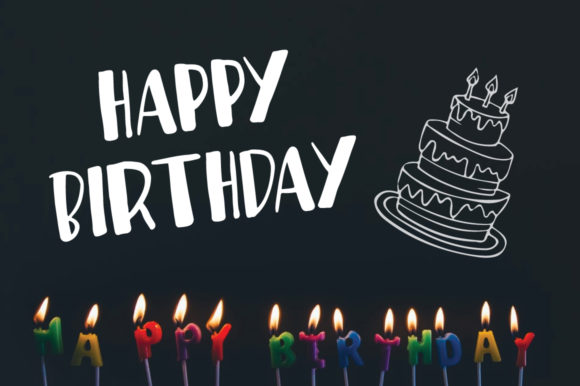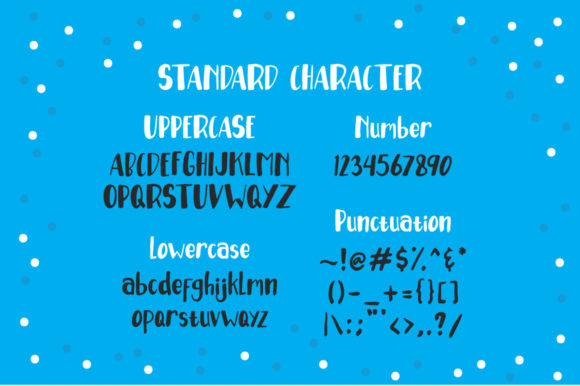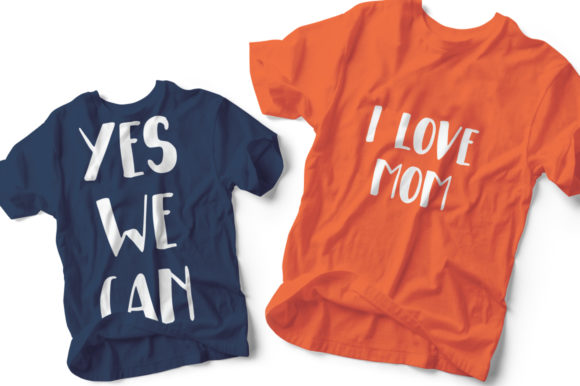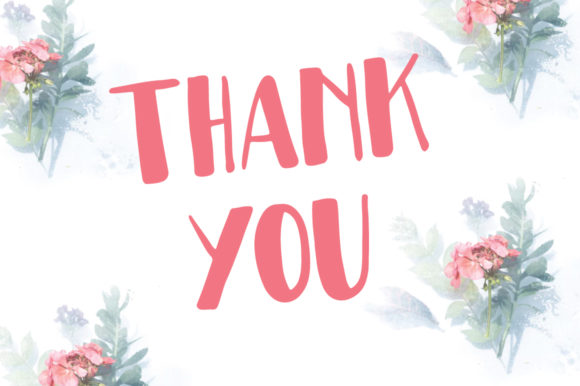
Introducing Gebryna Font: The Ultimate Choice for Informal Designs
Are you tired of using the same old fonts for your designs? Look no further! Gebryna Font is here to revolutionize your creative projects with its bold, casual, and playful style. This display font is perfect for designers and crafters who want to add a touch of fun and friendliness to their work. In this article, we’ll dive into the features and benefits of Gebryna Font, and explore how it can elevate your designs to the next level.
The Characteristics of Gebryna Font
- Children’s book titles and illustrations
Gebryna Font is also perfect for children’s themed designs, especially when combined with bright colors. The font’s playful and energetic vibe is sure to capture the attention of kids and adults alike, making it an excellent choice for:
- Kids’ party invitations
- Children’s clothing and accessory designs
- Educational materials and worksheets
- Kids’ website and app designs
Key Features of Gebryna Font
So, what makes Gebryna Font so special? Here are some of its key features:
- Bold and Casual Style: Gebryna Font has a bold and casual style that’s perfect for making a statement.
- Fun and Friendly: The font’s playful and energetic vibe makes it an ideal choice for informal designs.
- High-Quality Design: Gebryna Font is designed with high-quality and precision, ensuring that it looks great in any design.
- Easy to Read: Despite its bold style, Gebryna Font is easy to read, making it perfect for designs that require a clear and concise message.
Benefits of Using Gebryna Font
So, why should you choose Gebryna Font for your designs? Here are some benefits of using this amazing font:
- Adds a Touch of Fun: Gebryna Font adds a touch of fun and friendliness to your designs, making them more engaging and attention-grabbing.
- Perfect for Informal Designs: Gebryna Font is perfect for informal designs, such as posters, flyers, and social media graphics.
- Versatile: Gebryna Font can be used for a wide range of designs, from children’s themed designs to adult-oriented projects.
Tips for Using Gebryna Font
Here are some tips for using Gebryna Font in your designs:
- Combine with Bright Colors: Combine Gebryna Font with bright colors to create a fun and playful design.
- Use for Headings: Use Gebryna Font for headings and titles to add a touch of fun and friendliness.
- Experiment with Different Sizes: Experiment with different sizes and styles to create a unique and eye-catching design.
- Pair with Other Fonts: Pair Gebryna Font with other fonts to create a contrasting and visually appealing design.
In conclusion, Gebryna Font is an amazing font that’s perfect for designers and crafters who want to add a touch of fun and friendliness to their designs. Its bold, casual, and playful style makes it an ideal choice for informal designs, such as posters, flyers, and social media graphics. With its high-quality design, ease of use, and versatility, Gebryna Font is sure to become a favorite in your design arsenal.